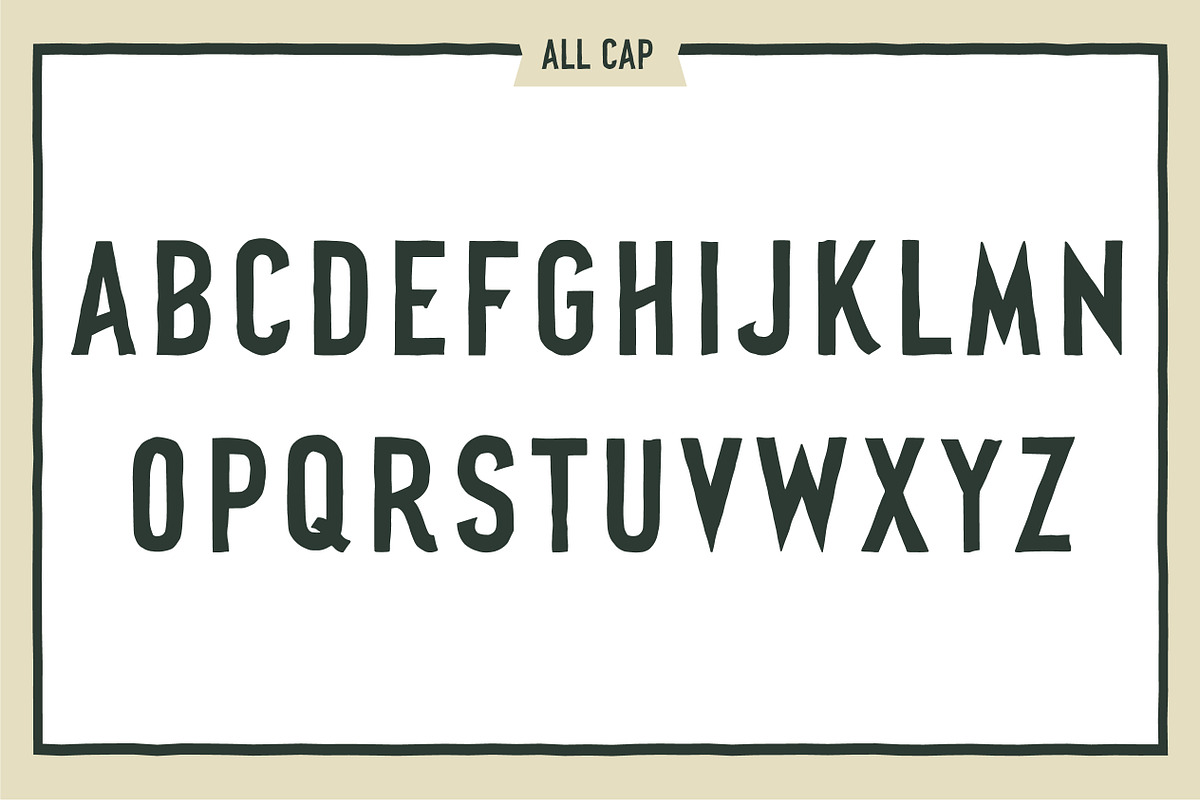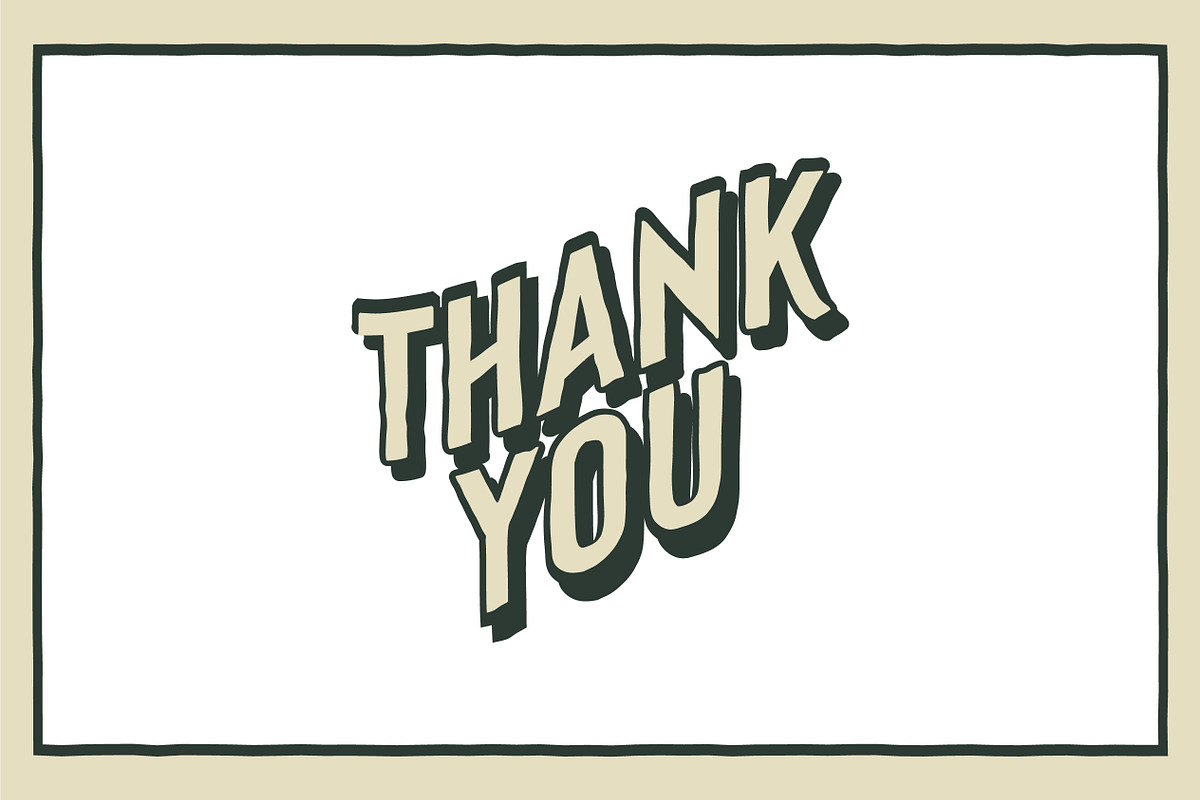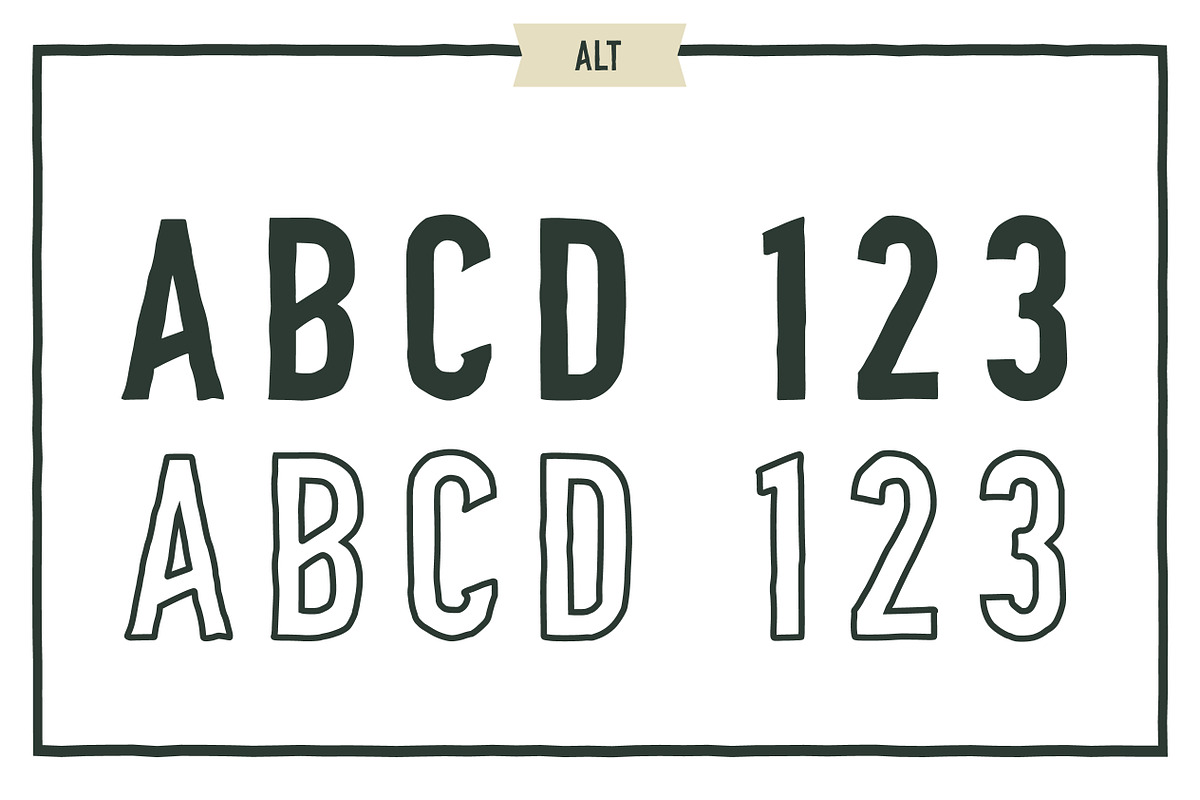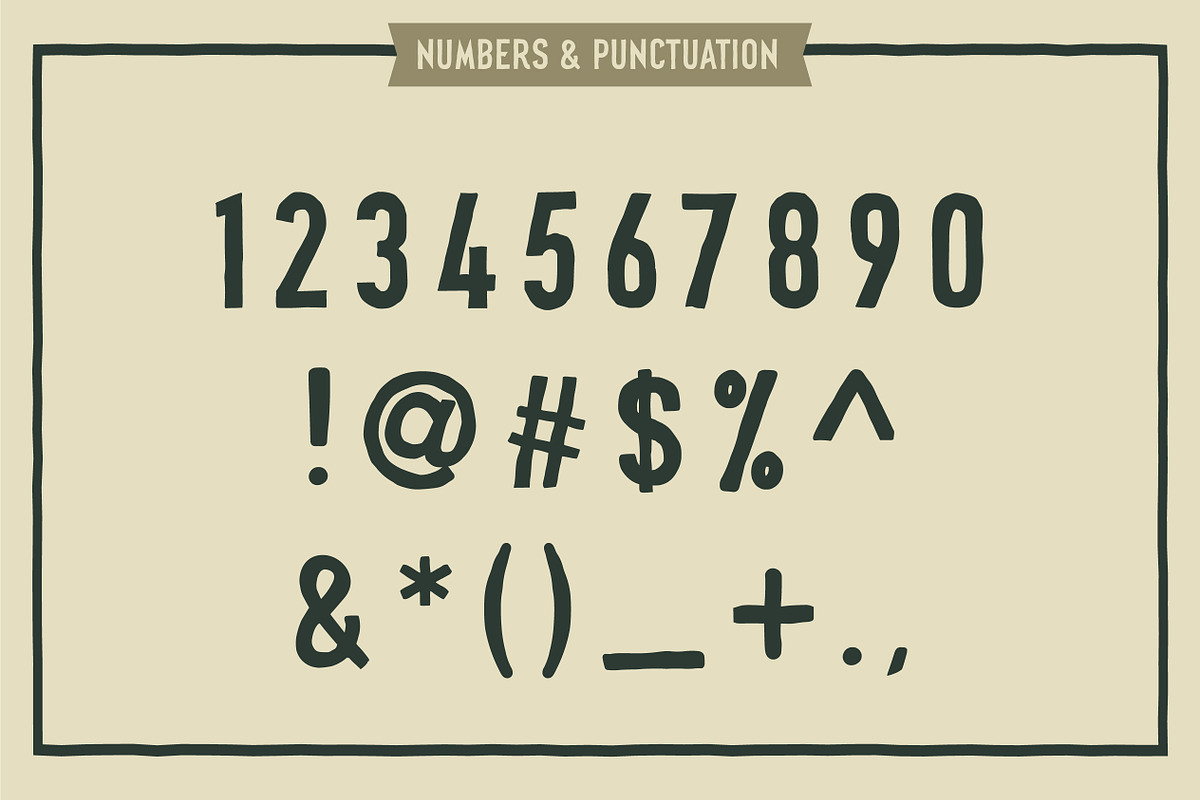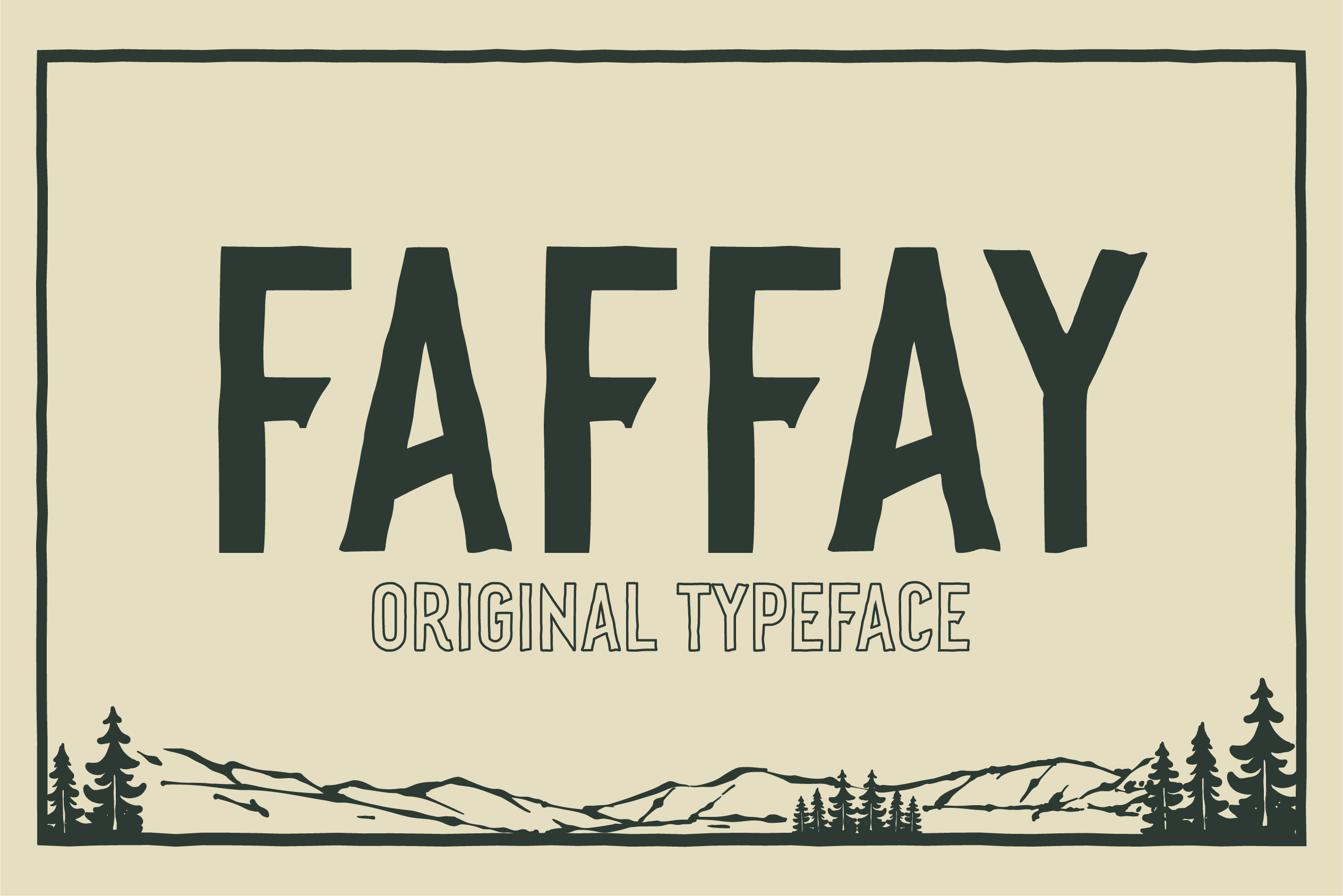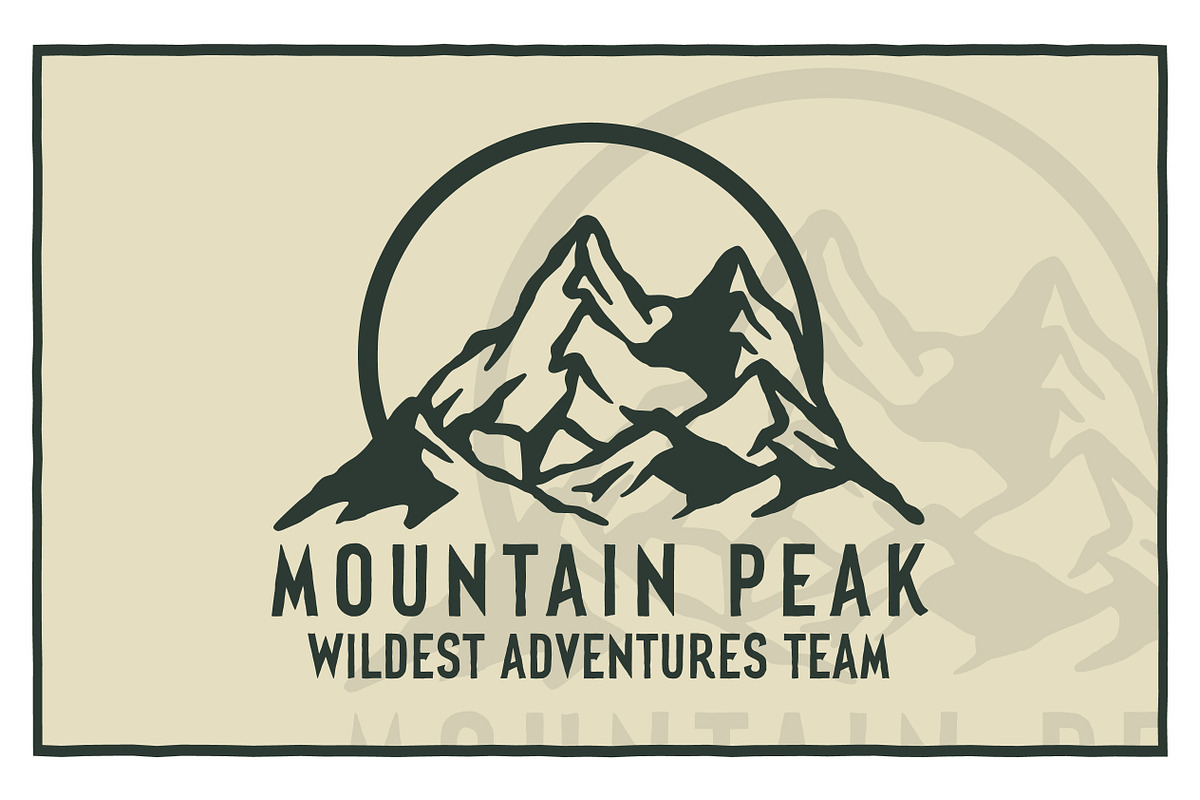
Faffay Vintage Font
Proudly present our original font type Vintage Faffay. Enhance your designs with our original fonts, feel free to comment or provide feedback, Enjoy the fonts Thanks